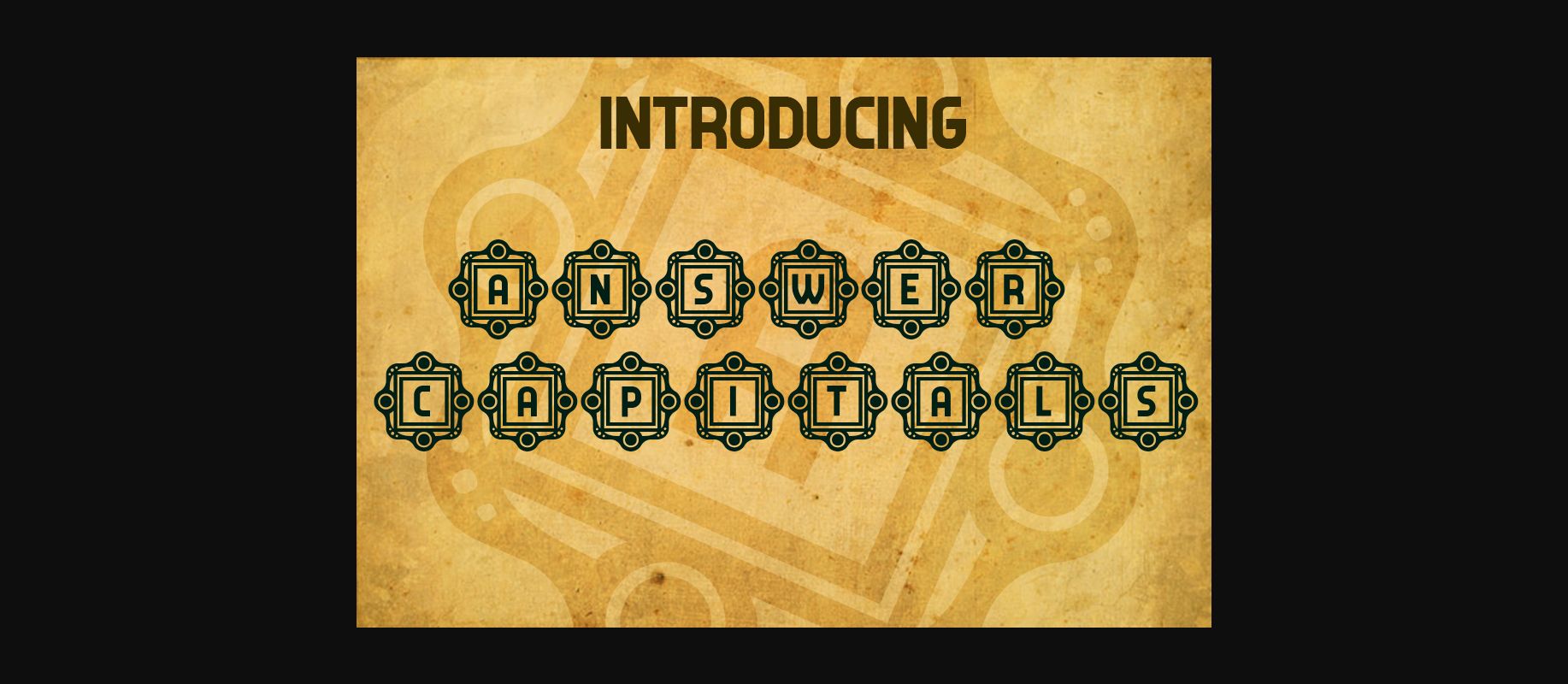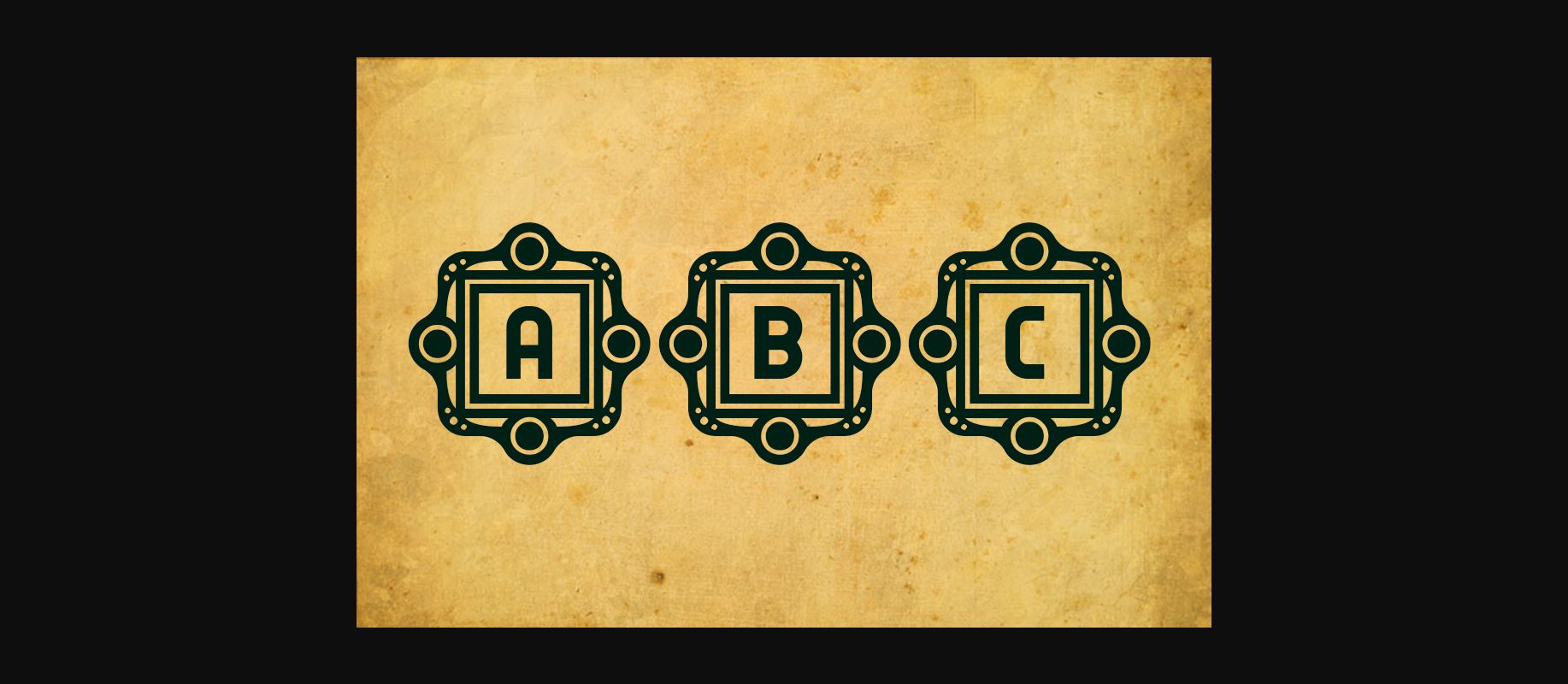
Answer Capitals Font
About Answer Capitals Font
Answer Capitals is a great decorative font.
It will look stunning on posters, headlines, banners, and much more.